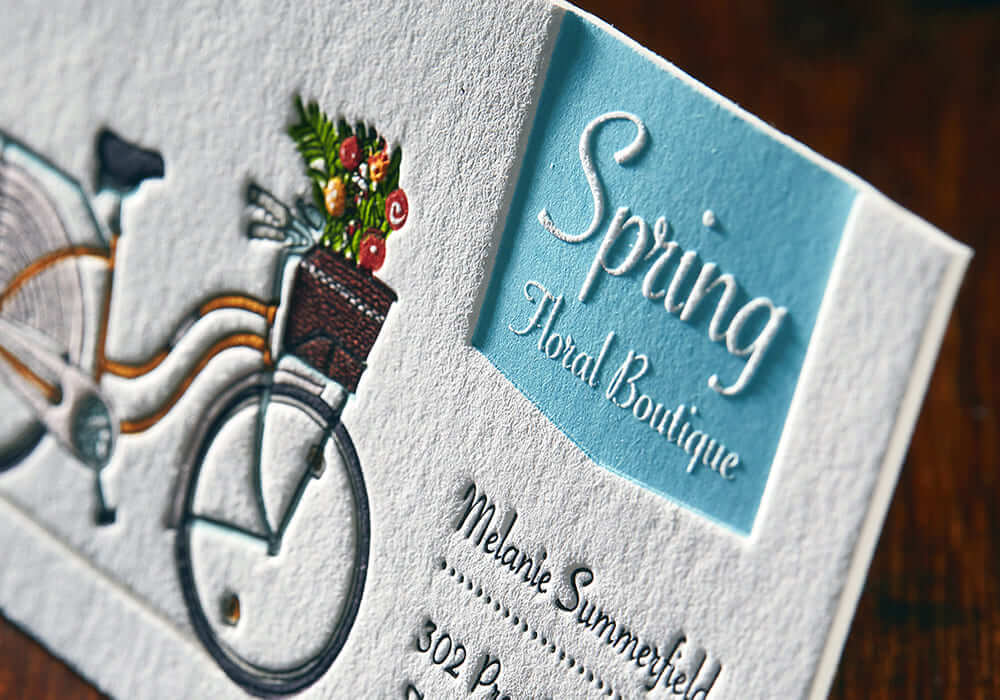
Creating a business card that allows a company to stand out among competitors requires top-class designer skills. A good business card is one that captures the eye. It feels good to just hold it and study it closely. Therefore, the font you use makes a big difference. In this article, we will tell you which font to choose for a business card depending on its purpose, as well as currently existing printing standards.
Business cards with sanserif fonts
There are two types of fonts: serif and sanserif. Sanserif fonts are also called chopped. The most famous and easily readable chopped fonts include Helvetica, Arial, Pragmatica, Tahoma, Verdana, etc.
Helvetica was created by Swiss designer Max Miedinger in the middle of the 20th century. It embodies the flows in design, aiming at simplicity and clarity of geometric shapes. Helvetica has become extremely popular. It is the most famous font in the world. McDonald’s, Nestle, Energizer, Toyota, Skype, BMW, Intel, Jeep, Lufthansa, Motorola, Olympus, Panasonic, Stimorol, Samsung, Sanyo, Zanussi — all of these logos use Helvetica. Its goal is to be liked by everyone.
Arial and Pragmatica are fonts that were modeled on Helvetica decades later by other design companies. All three types can be considered almost identical. And any of them perfectly suits a business card. If you prefer modern and minimalist designs, a sanserif font is your option.
Business cards with cursive type
A nice font similar to “handwritten” letters looks quite impressive but is not as easy to read. It can be a good choice for business cards if it actually represents the corporate style or occupation of the owner. It is common among artists: poets, writers, musicians, painters, sculptors, actors, etc.
Lobster, Calligraph, Nautilus Pompilius, Freestyle Script, Veles, Pacifico, Teddy Bear, Vivaldi, etc. are the most popular cursive types for business cards. They include “floral” (sophisticated, ornamented) and “cipher” (with numerous ciphers and flourishes) fonts. Consider them if you want to demonstrate elegance and luxury.
Some cursive types create the illusion that the text is handwritten. Consider the logo of the Cadillac company. Doesn’t it look like the stylish signature of a millionaire?
Words written in cursive type require a large font size. For contact details in this case, some other, easily readable font is preferred.
Business cards with vintage fonts
Vintage style stands out for its special charm and captivation. Of course, it wouldn’t be suitable for businesspeople who emphasize innovations, modern trends, new technologies, etc. It can, however, be used to show decades of experience, traditions, and, therefore, reliability and stability.
If you want to create vintage business cards, be sure to follow two main rules: use dimmed (as if faded over time) colors and chose an ambient retro font (for instance, Campton, Duma, Streetwear, Soria, etc.).
Simple, strict, and neutral, Campton will perfectly suit the business card of a person who wants to make an impression of well-respected solidity. Similar fonts were widely used in the 1950-60s, and they remain popular nowadays.
Duma and Streetwear are great choices for creating vintage business cards as well! They precisely express the aesthetics of the 1970s. The Soria font can be chosen for business cards with a retro theme. It is reminiscent of fonts used during the art nouveau era.
Business cards with serif fonts
Serif fonts are the first used in printing. They are common in books, magazines, and other large texts. Their best-known characteristic is a small stroke perpendicular to the base and/or ending of the letter. Serif font is considered to be easier for reading because these strokes make a horizontal line, allowing readers’ gaze to “scroll” along.
The most famous type of this font is Times New Roman. It was created in the 1930s specifically for The Times newspaper and was used there for 40 years. This font has become very popular in the publishing and book industry. There are a wide variety of versions that vary in thickness and width. If you want your business card to be associated with English style, modesty, convenience, and functionality, Times New Roman is a perfect choice.
Courier is another serif font; it imitates the text of a mechanical typewriter. It is often used in programming by default and is associated with freedom and the ability to go beyond standard solutions.
Other serif fonts, such as Book Antiqua, Day Roman, Serif, Apple, Sanford, Nouvelle, Cambria, etc., are also used for creating business cards. Different fonts have different strokes: some are more noticeable and others are less noticeable.
Business cards with children and “cartoon” fonts
Children’s fonts contain letters with a funny (“cartoon”) style. They make you smile and remind you of childhood. The best-known ones include DisneyPark, Ruritania, Pudelinka, Kot Leopold, Fairy Tale, etc.
Imagine that the business card of a bank administrator had “cute” fonts. As a potential customer, would you trust that bank? No. Now imagine a business card with the caption “Fun attractions for kids” written in black Arial or Times New Roman. Doesn’t look that fun, right?
“Cartoon” font is suitable only for business cards advertising products or services for kids. If the goal of your company is to make people happy, why not brighten up your business card with a font that looks not only stylish but also entertaining? Consider Twitter, which uses a playful Pico Alphabet font with some hints of anime. It was created by a Japanese company named Maniackers Design.
Why is business card design so important?
Despite being small, a business card isn’t a simple thing. A properly designed business card is an effective marketing tool. It works and presents your business to customers just as well as a leaflet, white paper, or marketing kit.
There are certainly numerous convenient and more “progressive” alternatives to paper contact information carriers. Business cards, however, will always be less costly to create and disseminate compared to other types of promotional materials. A minimal budget is needed to create awesome results.
Business cards have a number of advantages compared to outdoor and other types of advertising, including:
- Quick information exchange. Handing out a business allows your partner to learn more about you and your business within seconds.
- Corporate courtesy. A business card exchange is often used to establish business connections.
- Small size. A business card can easily fit in your pocket, purse, or business card holder.
- Availability. You can order them in any printing office for a reasonable price.
- Durability. If needed, the recipient can keep your business card for many years
Don’t forget that having a business card, as well as its quality, design, and font, are elements of your reputation, which is important in business relations.
Find out more about business cards in our articles. Learn how to create an original business card design and how to print it with our business card dimensions guide.
When choosing the font for your business cards, make sure to not be overly creative. Whichever you prefer (serif or sanserif [or a combination of both], cursive, vintage, or “cartoon” letters), your main goals while creating a business card are readability and legibility. A person who takes your business card should instantly understand who you are and what kind of product or service you offer.
Remember that there shouldn’t be a lot of text on a business card. However, there must be contact details – address, phone, website, links to your social media pages. You can indicate right on the business card that the holder can get a discount or a bonus. This will become additional motivation for the potential customer to visit your store or office.
There is an unwritten rule: You shouldn’t use more than two fonts on one business card. The first one is for the slogan, brand name, or logo while the second one (simple and easily readable) is for the rest of your text.
Before ordering business cards, ask yourself several questions: Why do you need them, to whom and where will you hand them out, how will they be used? The answers will help you decide on the text and colors, as well as the fonts.